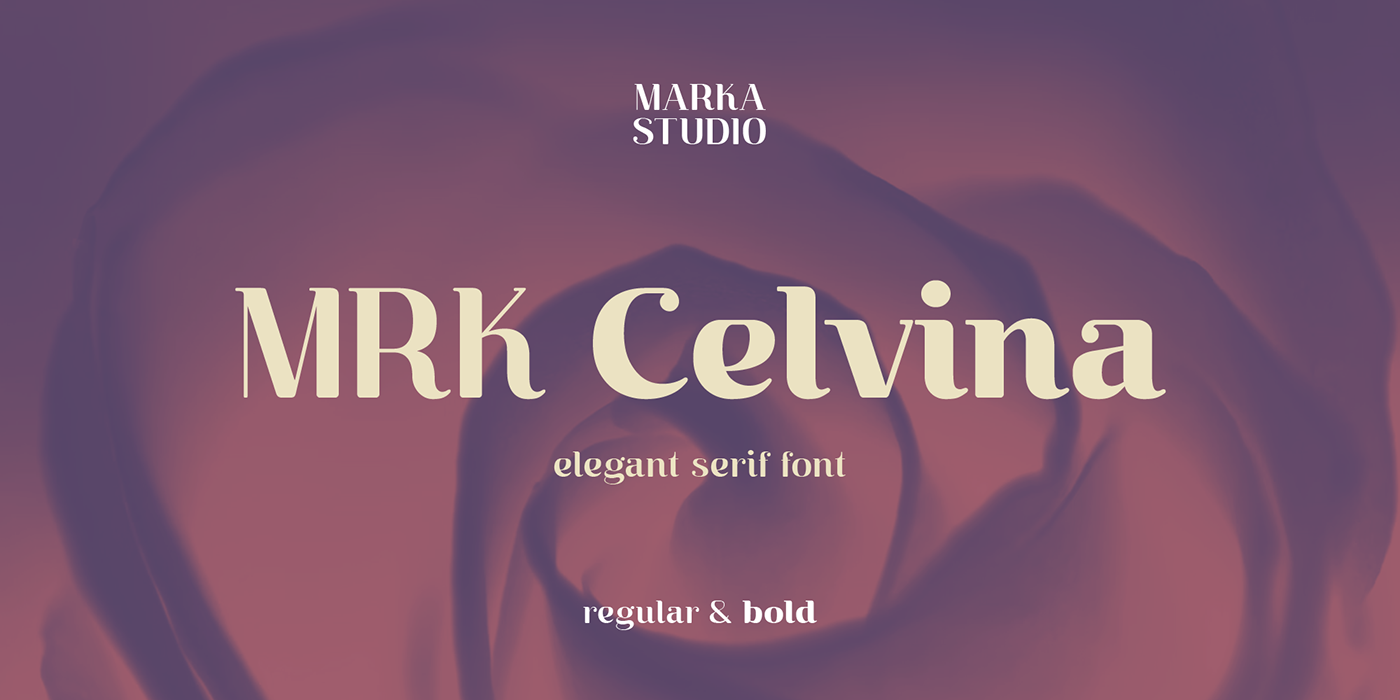
MRK Celvina is an elegant, modern serif font. Flat horizontal lines meet with classic and smooth curves on this font. It gives a dynamic and classic look that is perfect for modern elegant brandings and headlines. A stylish and extraordinary font containing ligatures, all punctuations, and supports multi languages.
This font is suitable for various purposes such as movies, posters, logos, labels, packaging, branding, editorial design, websites, applications, and any modern purposes.